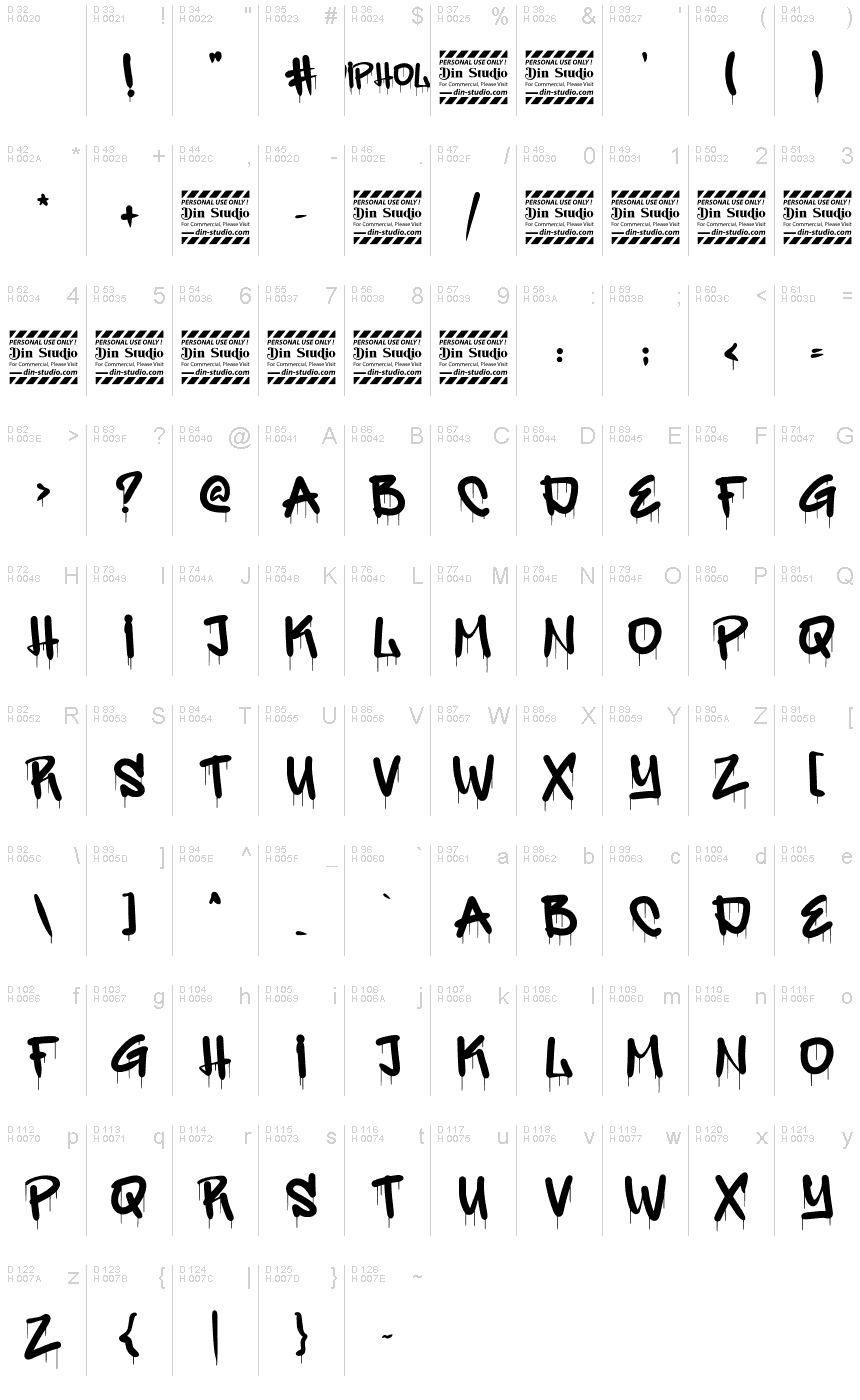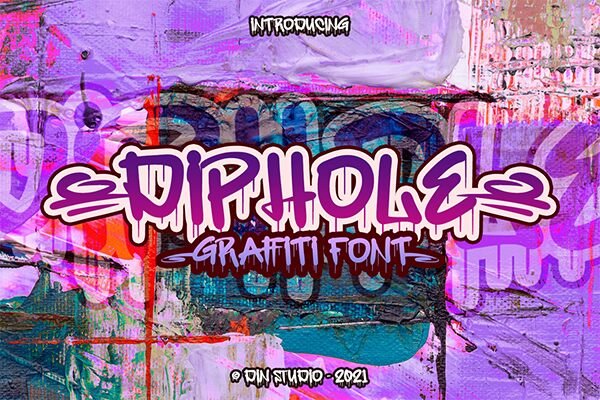
Diphole Personal Use
Diphole emerges from the vibrant streets into the design world, bringing with it an unapologetic urban edge. Crafted by Din Studio, this graffiti font captures the rebellious spirit of street art and infuses it into every character. With its bold outlines and assertive all-uppercase lettering, Diphole demands attention, making it a go-to choice for designers looking to inject a dose of authenticity into their projects.
This typeface is more than just letters on a page; it's a statement piece, perfect for invitations that need to shout excitement or t-shirts that speak louder than words. Its versatility extends to branding that requires an impactful voice or social media content craving visual punch. Whether you're crafting eye-catching headings or designing memorable logos and menus, Diphole delivers the street vibe and playfulness your creative work deserves.